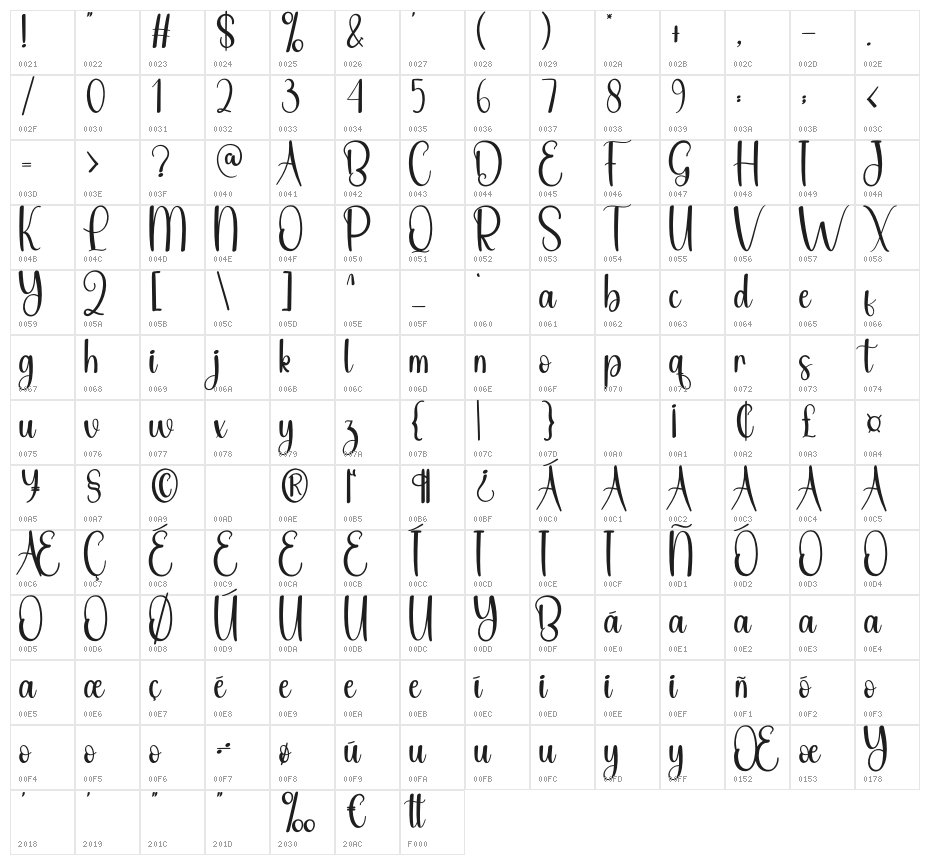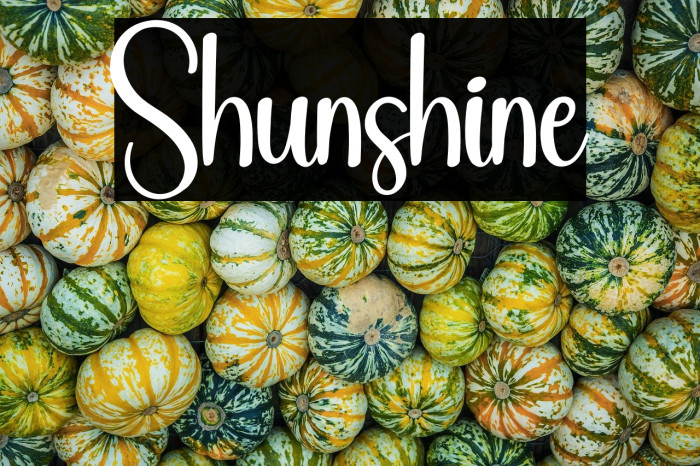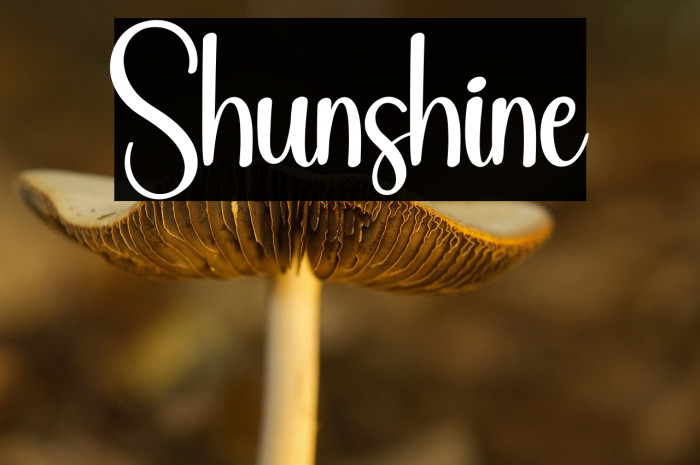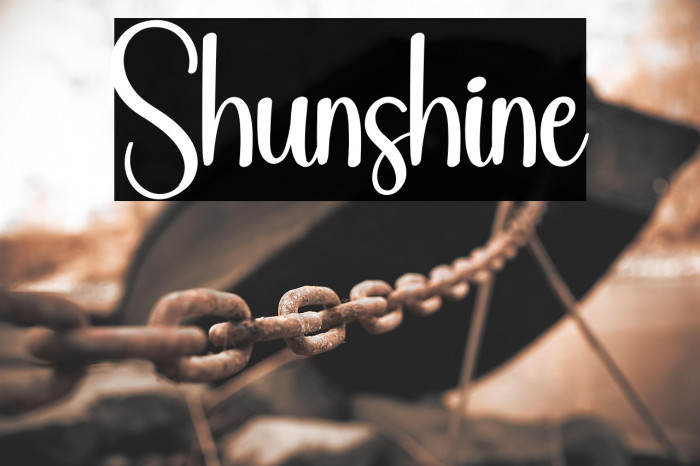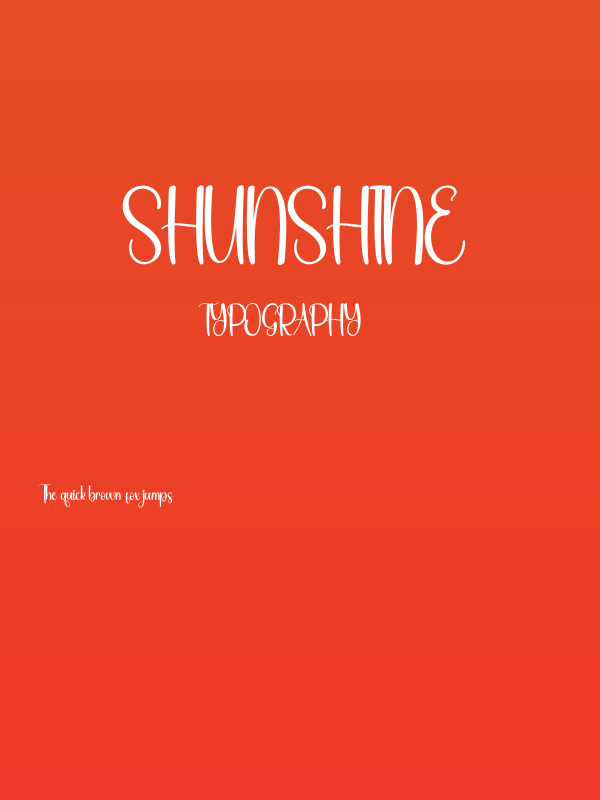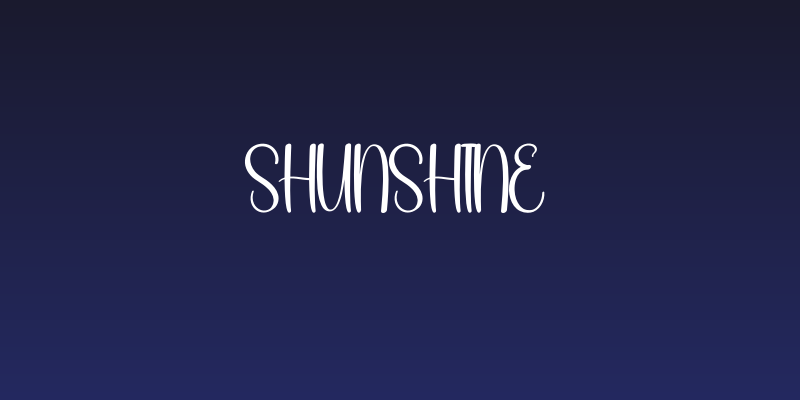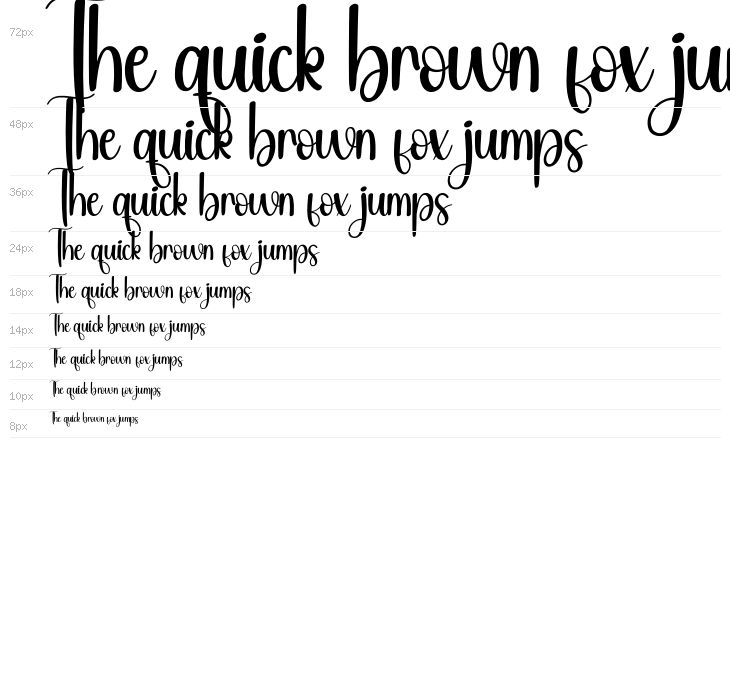
Shunshine Font
Shunshine Description
A playful and whimsical handwritten font with flowing curves and a casual style.
| Use Case | Logos, Invitations, Greeting cards |
| Proposed Projects | Greeting cards, invitations, playful branding. |